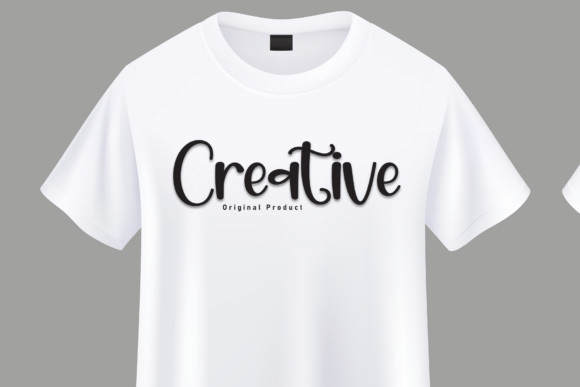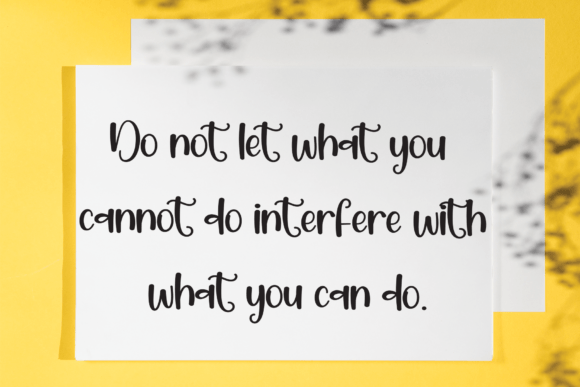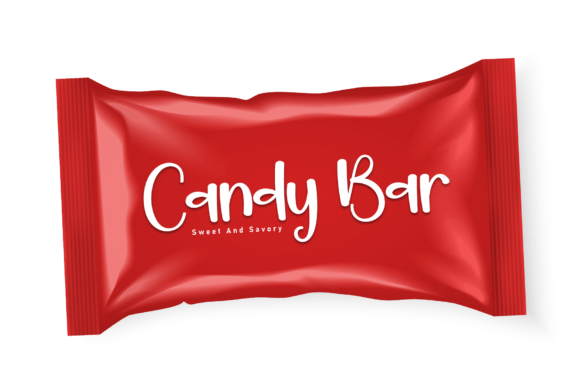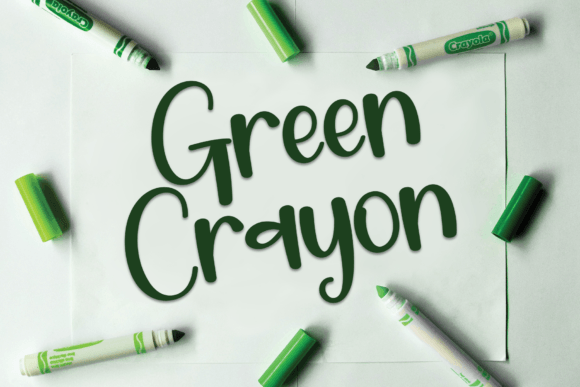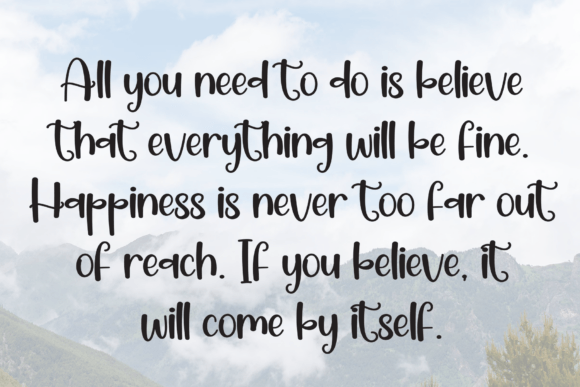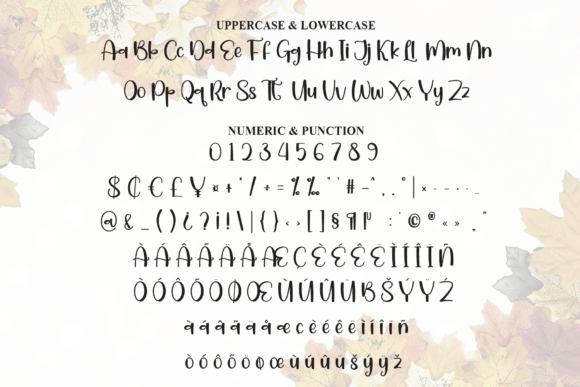
Embracing the Cozy Spirit of Autumn with the Perfect Font
As a designer, I’ve had my fair share of moments where I’ve struggled to find the right font for a project. But one moment that stands out was when I was working on a fall-themed invitation for a friend’s harvest party. I wanted a font that captured the warmth and coziness of the season, but everything I tried seemed either too formal or too bland. That’s when I stumbled upon the Autumn Font – a bold, handwritten font that instantly transported me to a crisp autumn day.
A First Impression: What Makes Autumn Font Special
The Autumn Font is a gem for any designer, crafter, or creative hobbyist looking for a warm and friendly font. Its casual style makes it perfect for invitations, fall-themed designs, and cozy projects. The letters are easy to read and have a playful touch, capturing the spirit of the autumn season.
• ✨ Warm and Inviting: The font exudes a sense of warmth and coziness, making it perfect for autumn and winter designs.
• ✅ Easily Readable: Despite its playful touch, the font remains clear and easy to read, even at smaller sizes.
• 💕 Versatile: It can be used for a wide range of projects, from invitations and posters to social media graphics and more.
While the Autumn Font is fantastic, there are a few things to keep in mind:
• 🤔 Limited Formality: Given its casual nature, it might not be the best fit for very formal projects or corporate branding.
• ⚠️ Glyph Variety: While it has a good range of characters, it might not have extensive OpenType features or stylistic alternates compared to some other fonts.
The Story Behind Autumn Font
The Autumn Font was inspired by the traditional handwritten signs you’d find at farmers’ markets and roadside stands during the fall season. The designer aimed to capture the warmth and friendliness of these hand-painted letters, making it perfect for anyone looking to add a personal touch to their designs.
Q: Does the Autumn Font include OpenType features?
A: While it may not have an extensive range of OpenType features, the Autumn Font does offer some basic features and glyphs that can enhance your designs.